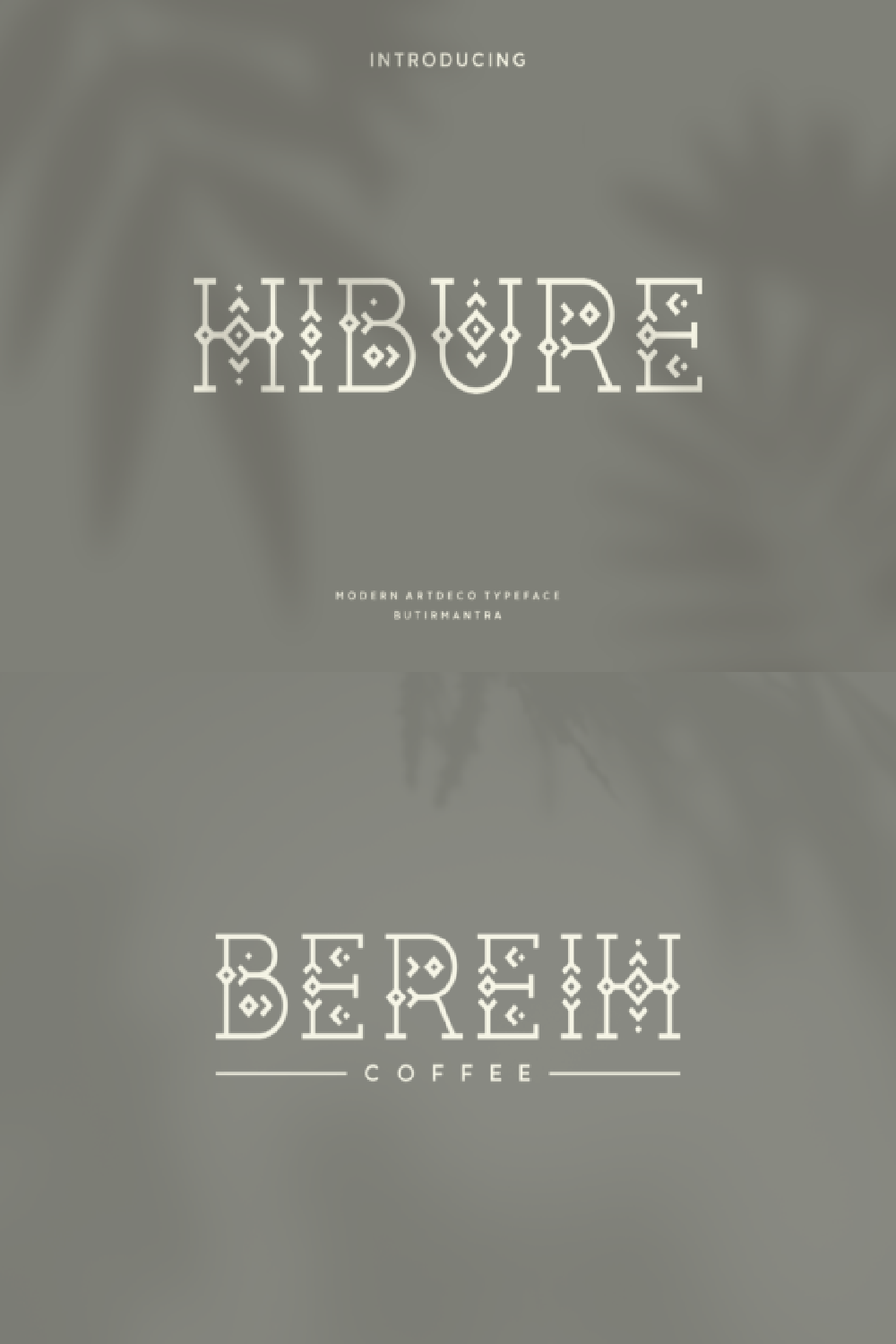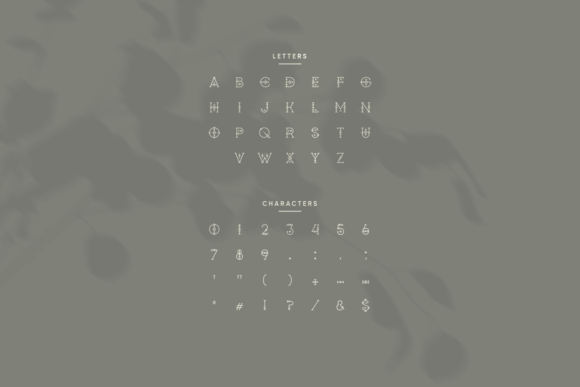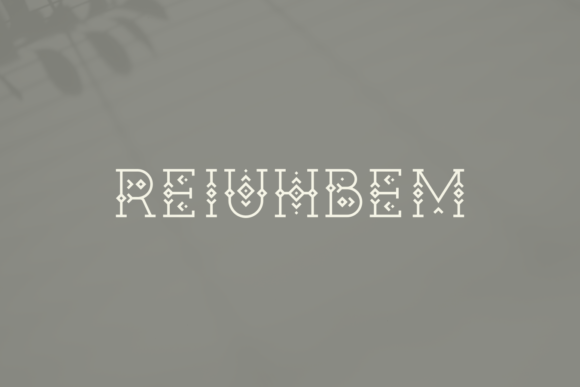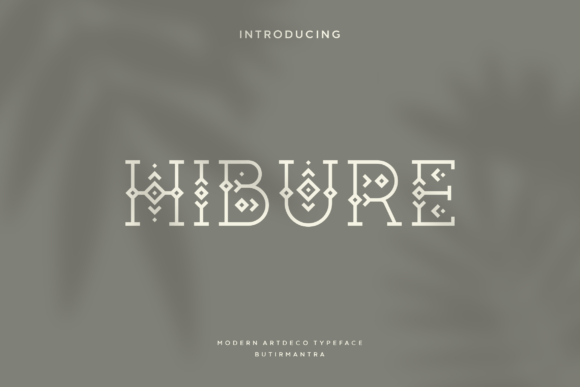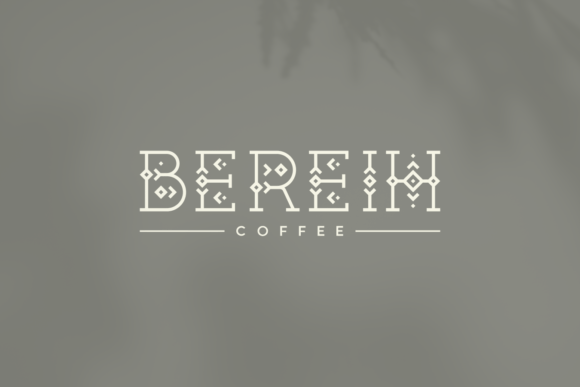
Hibure Font: Unique Tribal Display Font for Logos & Branding!
About the Hibure Font
Presenting Hibure Font, a unique and stylish typeface that will make your work stand out. Hibure is a unique abstract decorative font, inspired by motifs from the past, bringing back the old vibes for a more modern and timeless style. This font will work great for crafts and tribe designs, it will be great for logos, headlines, magazines, posters, and anything that requires a unique geometric typeface with tribal motif. This font has unique and very dynamic uppercase characters, inspired by Nordic bohemian runes and the glorious Viking era of the past.
Hibure’s bold, geometric forms and strong verticality make it ideal for headlines, logos, and short, impactful text within posters or branding materials. Its unique character shines in applications demanding a strong visual presence, such as craft-related projects or brands emphasizing heritage and a modern take on traditional styles. Avoid using Hibure for body text or lengthy paragraphs; its intricate details can become overwhelming at smaller sizes and in continuous blocks of text.
Pairing Hibure effectively requires considering its strong personality. A clean sans-serif like Futura or a neutral serif such as Garamond will create a balanced contrast, allowing Hibure to retain its visual power without overwhelming the design. For a more adventurous feel, a script typeface with a similar weight to Hibure’s uppercase could offer an interesting juxtaposition. Avoid pairing it with overly decorative or whimsical fonts which might clash with its assertive style.
The overall mood of Hibure is modern yet grounded, conveying a sense of both strength and heritage. It’s perfect for brands aiming for a sophisticated yet memorable aesthetic, reflecting quality craftsmanship, adventure, or a connection to cultural roots.